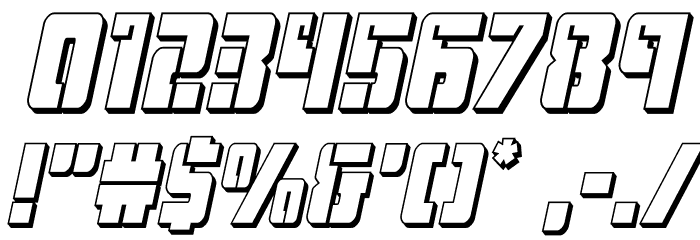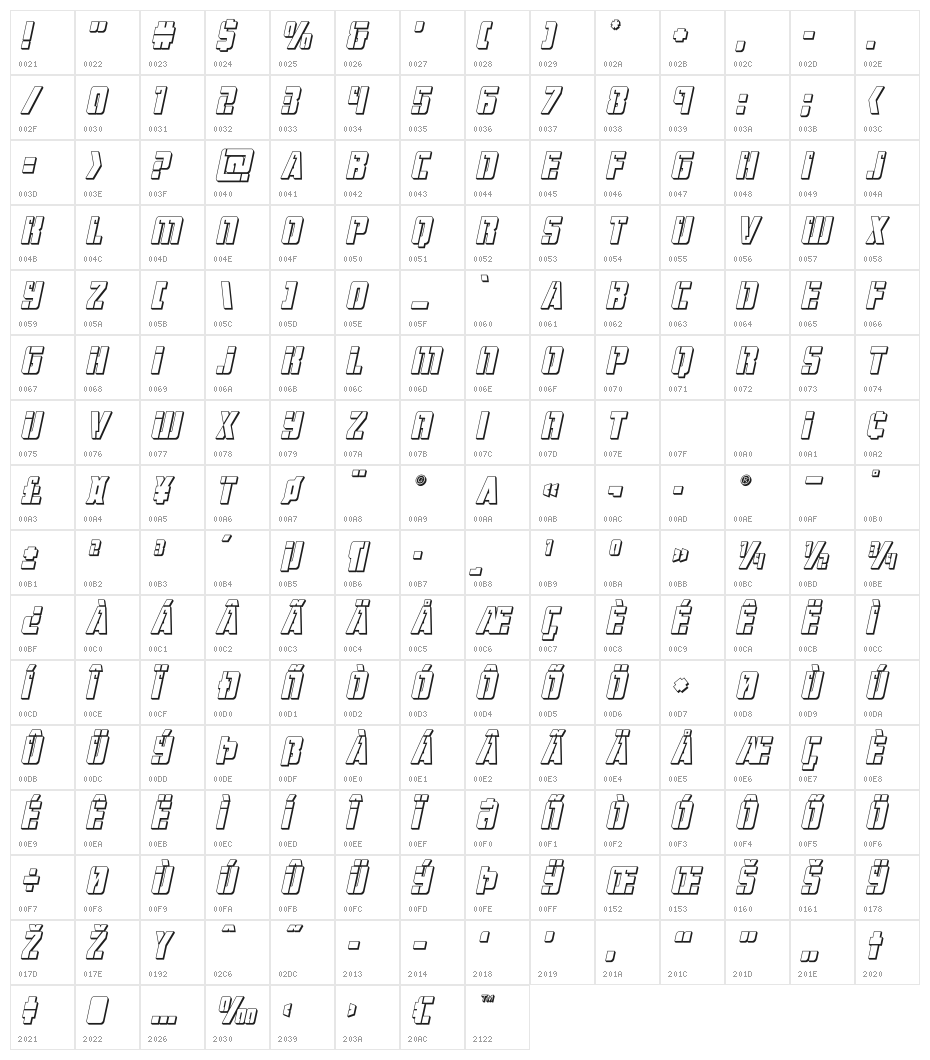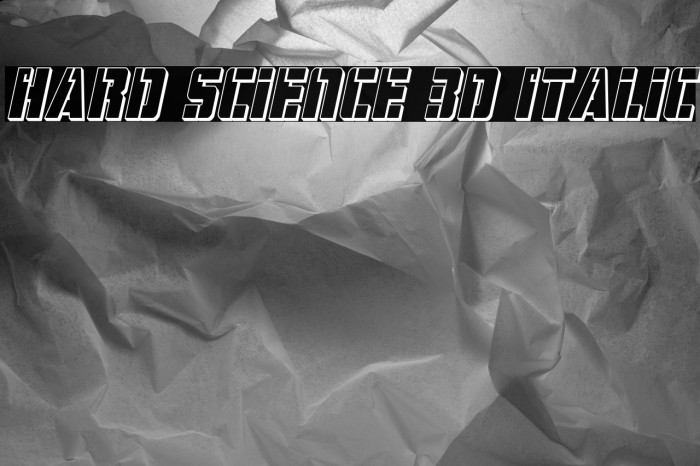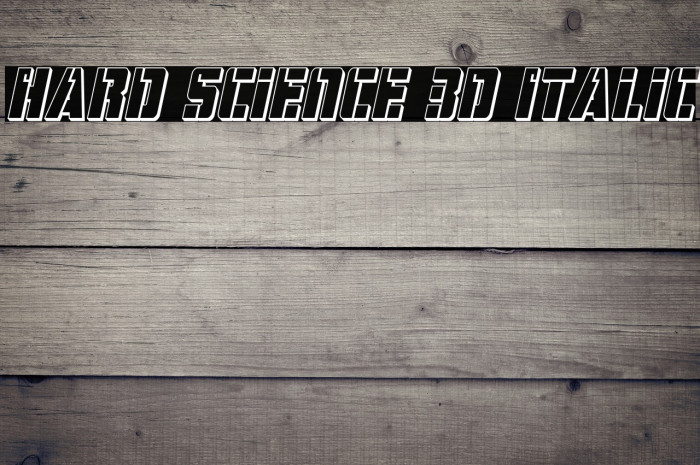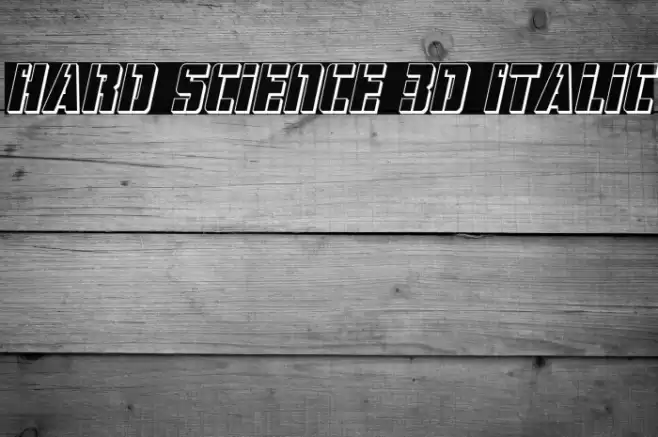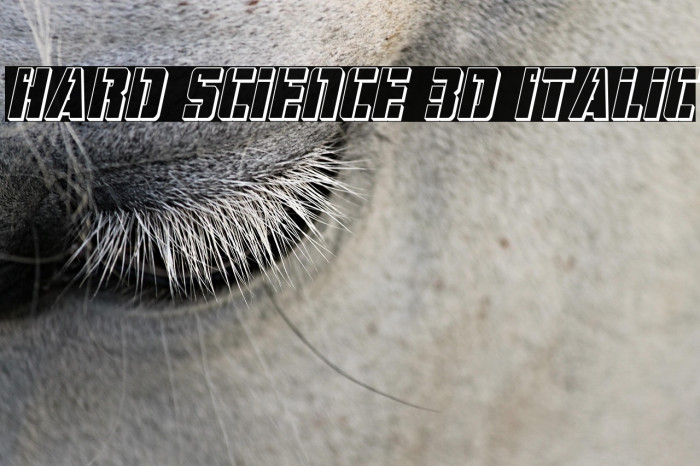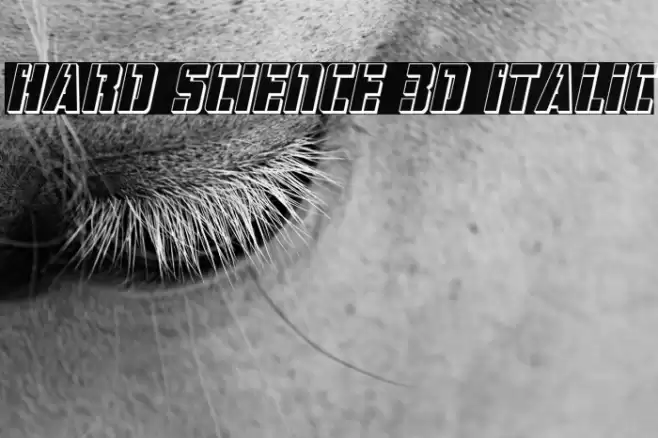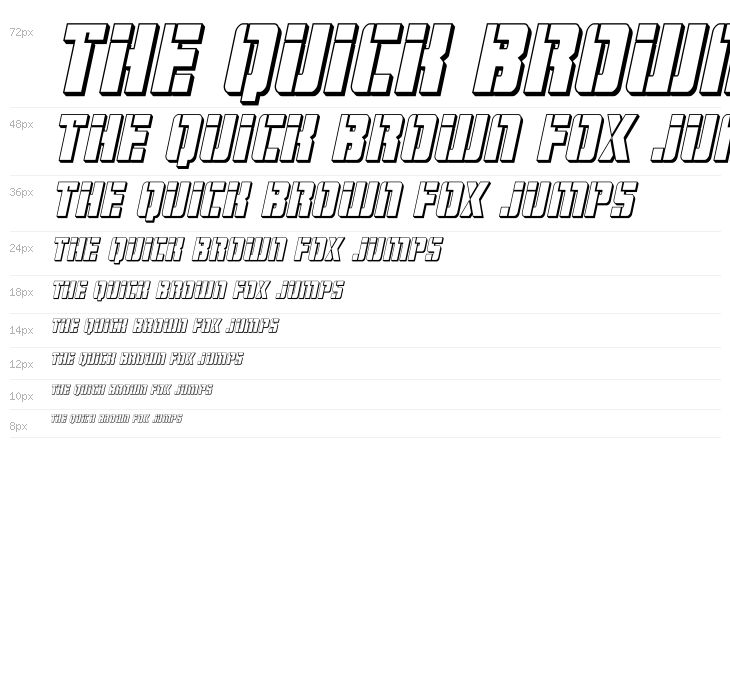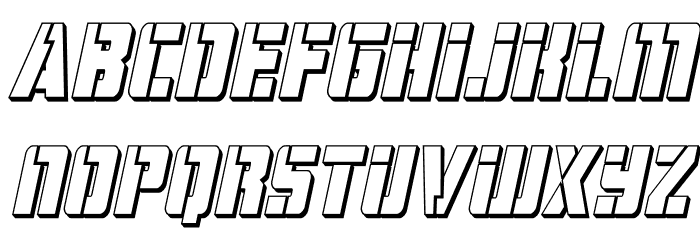
Hard Science 3D Italic Font
Hard Science 3D Italic Description
This font features a bold, three-dimensional design with an italic slant, giving it a dynamic and futuristic appearance. The characters are outlined with a thick black border, enhancing the 3D effect and making each letter stand out prominently. The uppercase and lowercase letters maintain a consistent style, with angular edges and a blocky structure that conveys strength and modernity. The numbers and special characters follow the same design principles, ensuring uniformity across all glyphs. This font's unique style is ideal for projects that require a bold statement and a touch of modern flair.
| Proposed Projects | Ideal for sci-fi themed designs, video game titles, posters, and branding that requires a modern and bold look. |